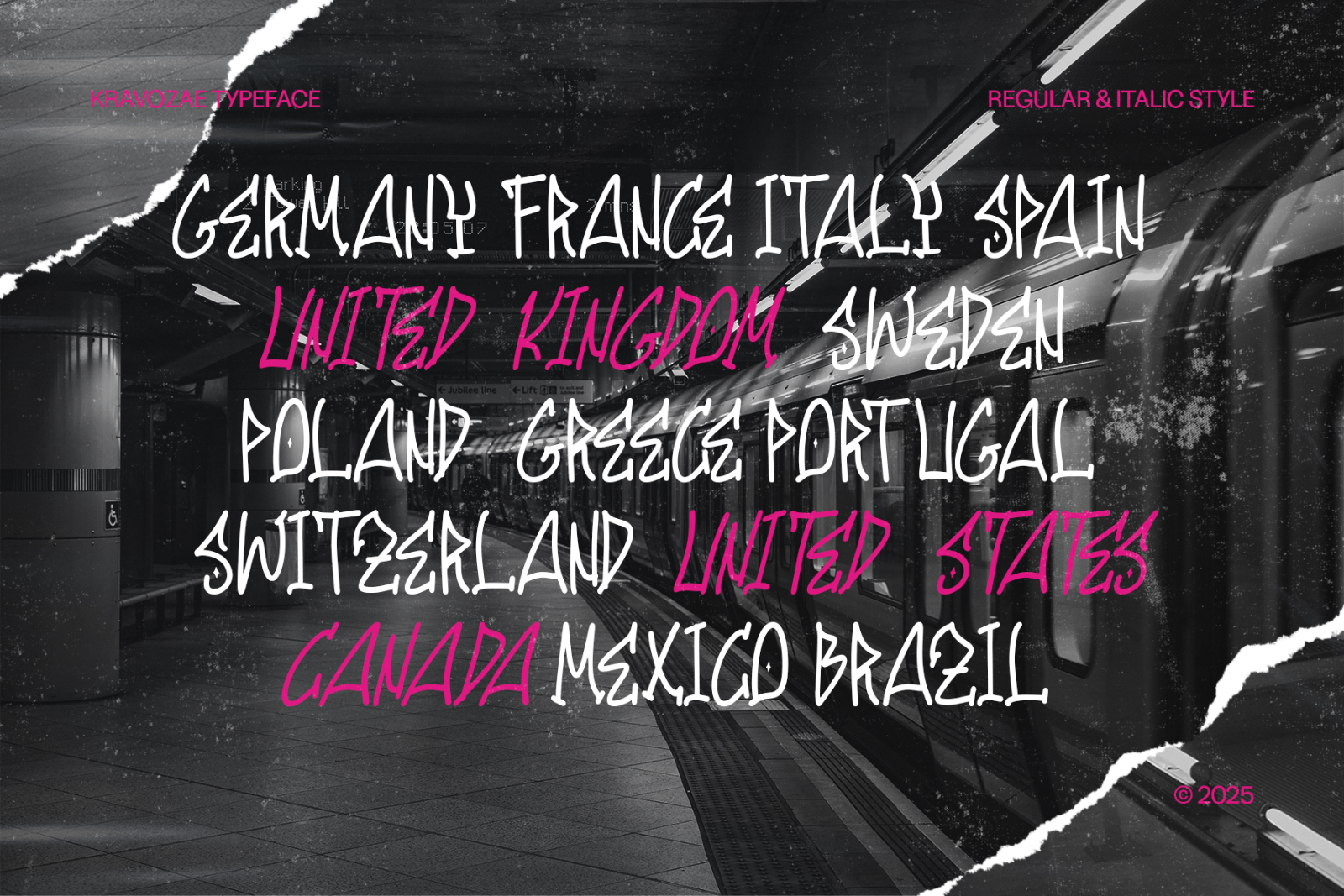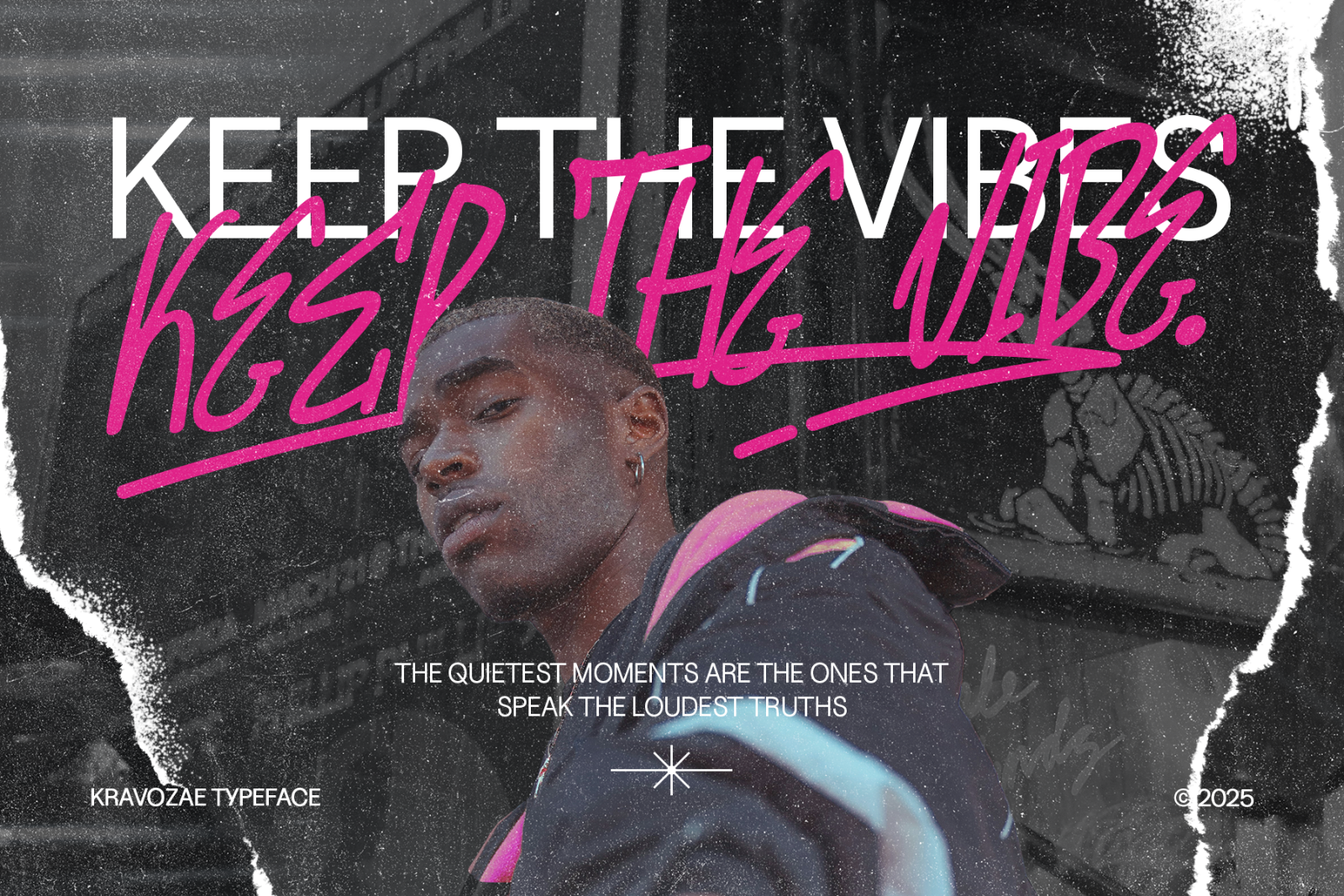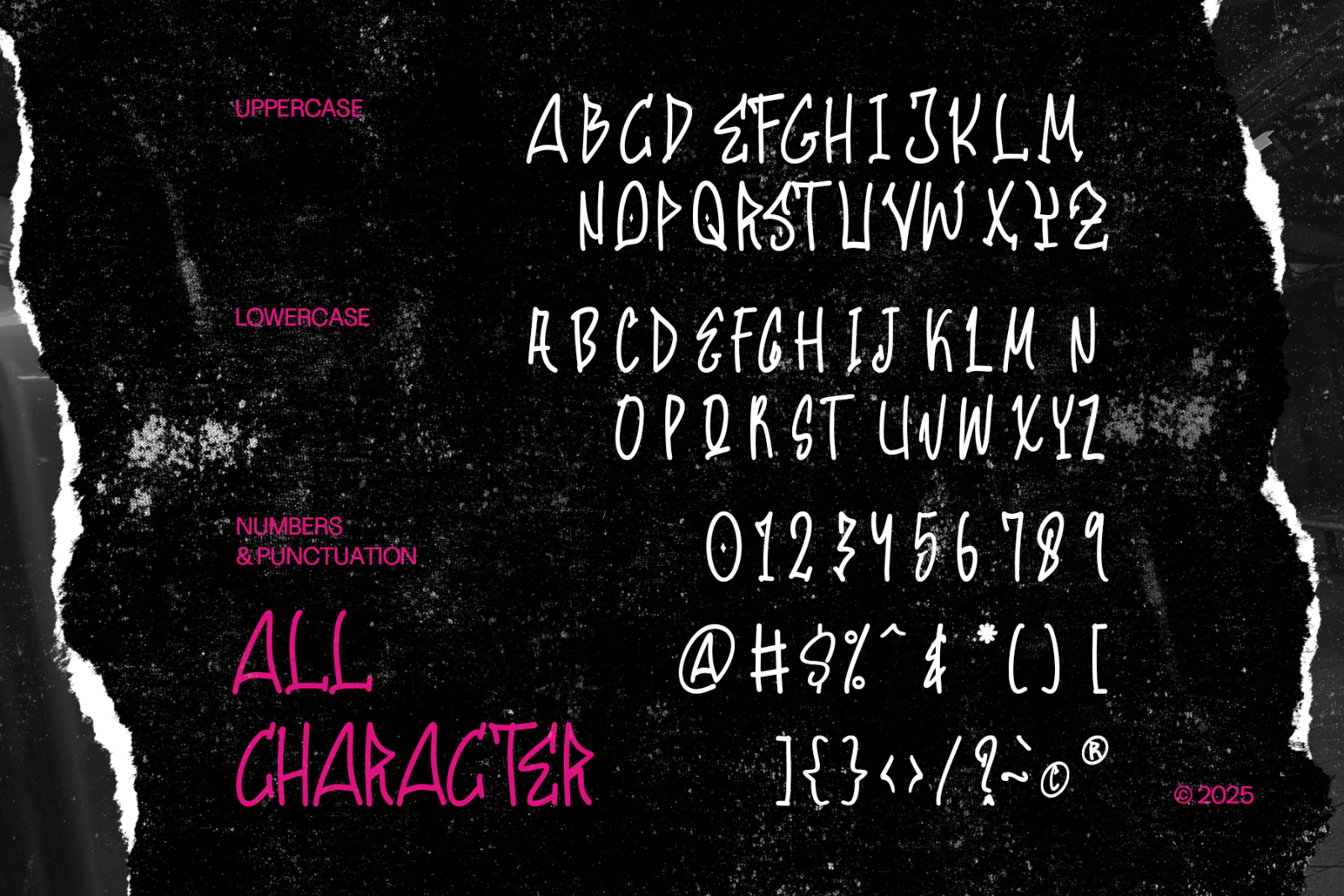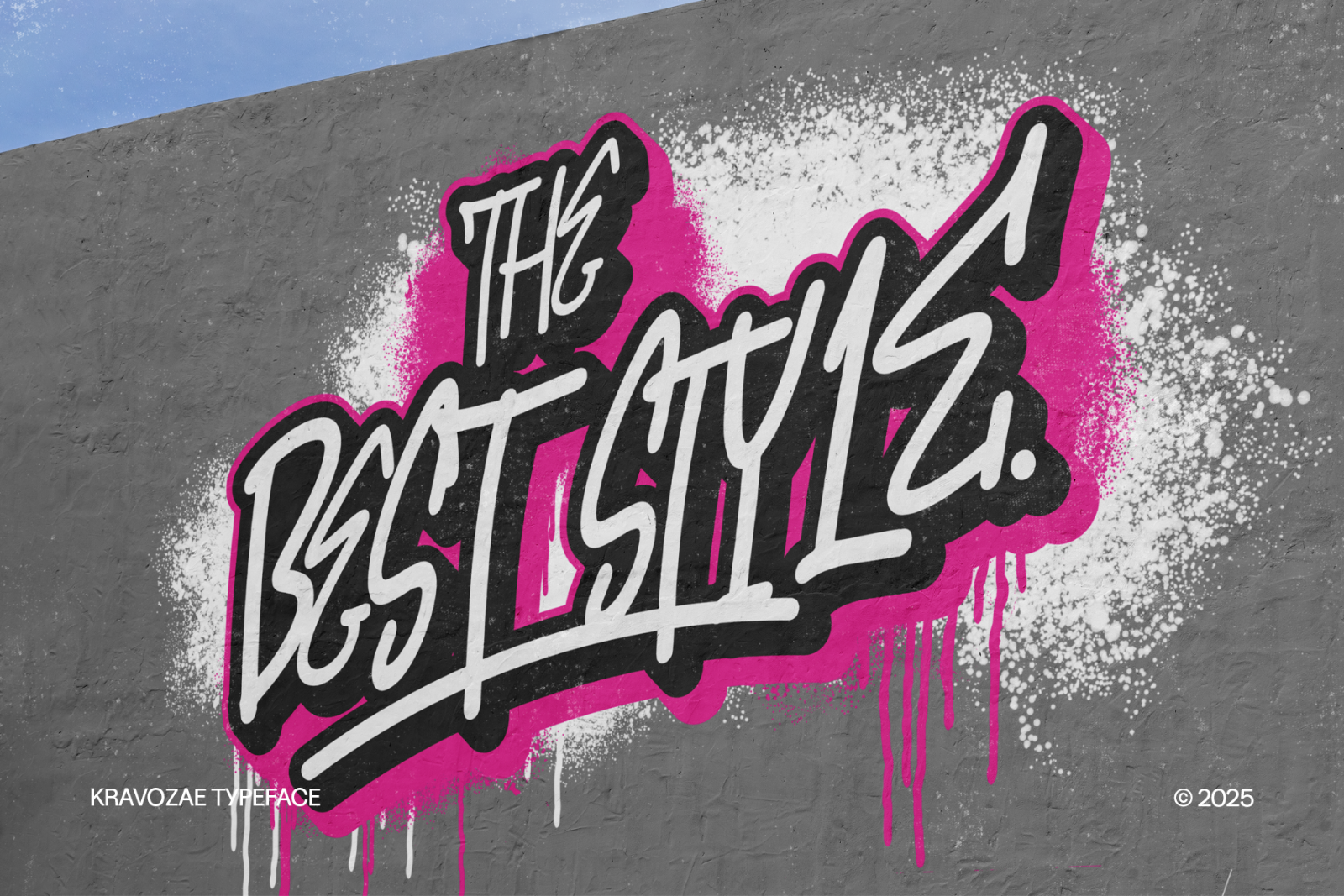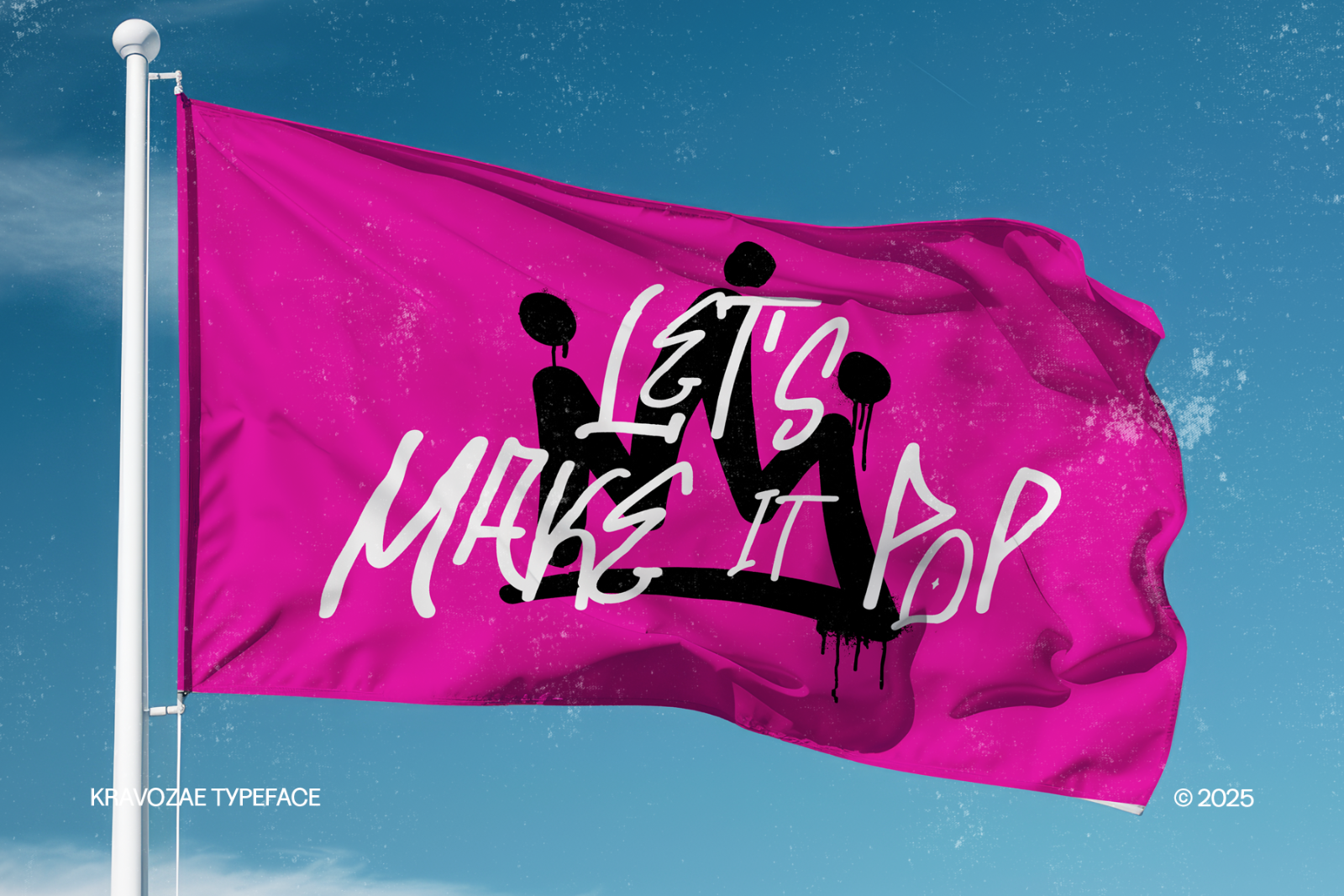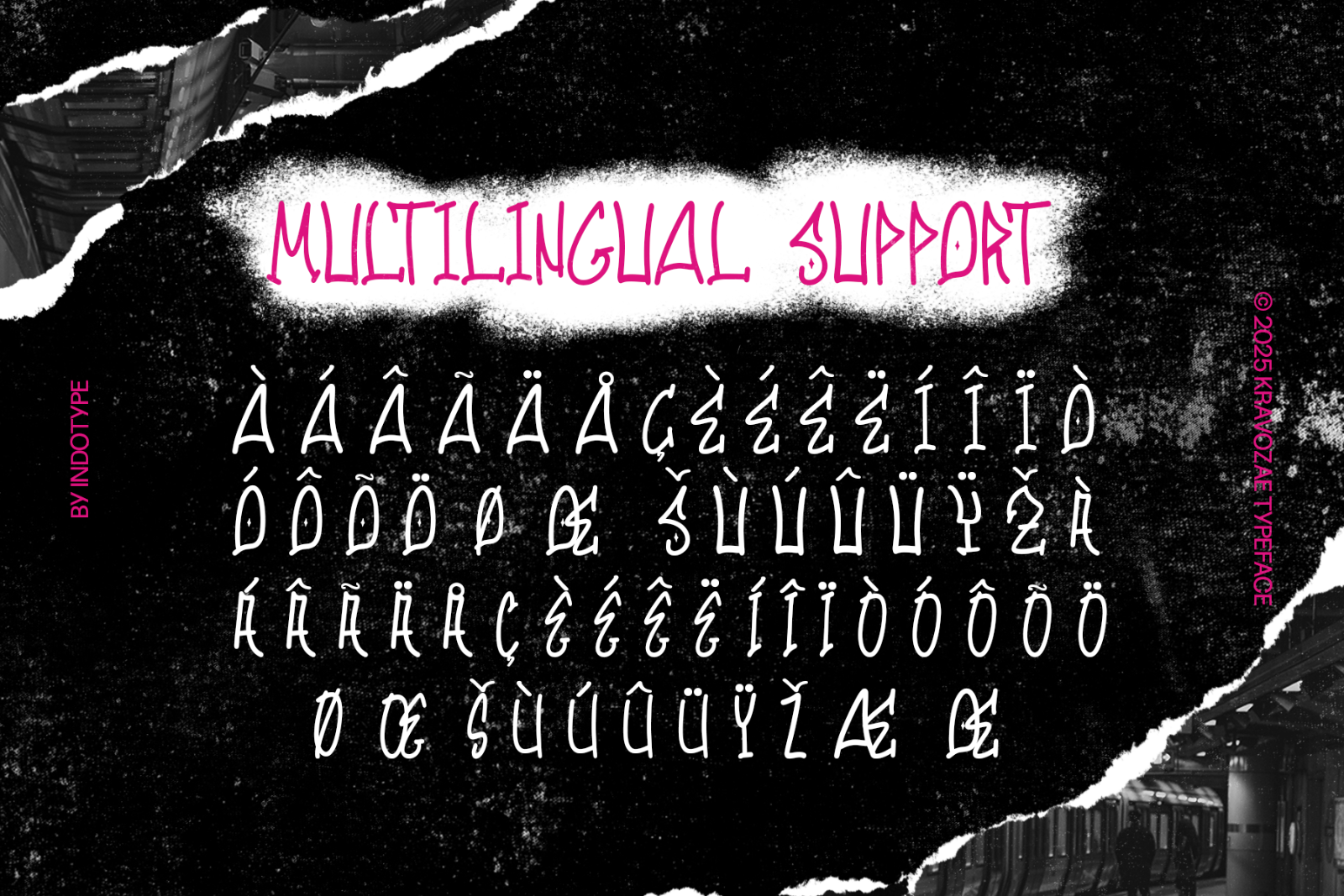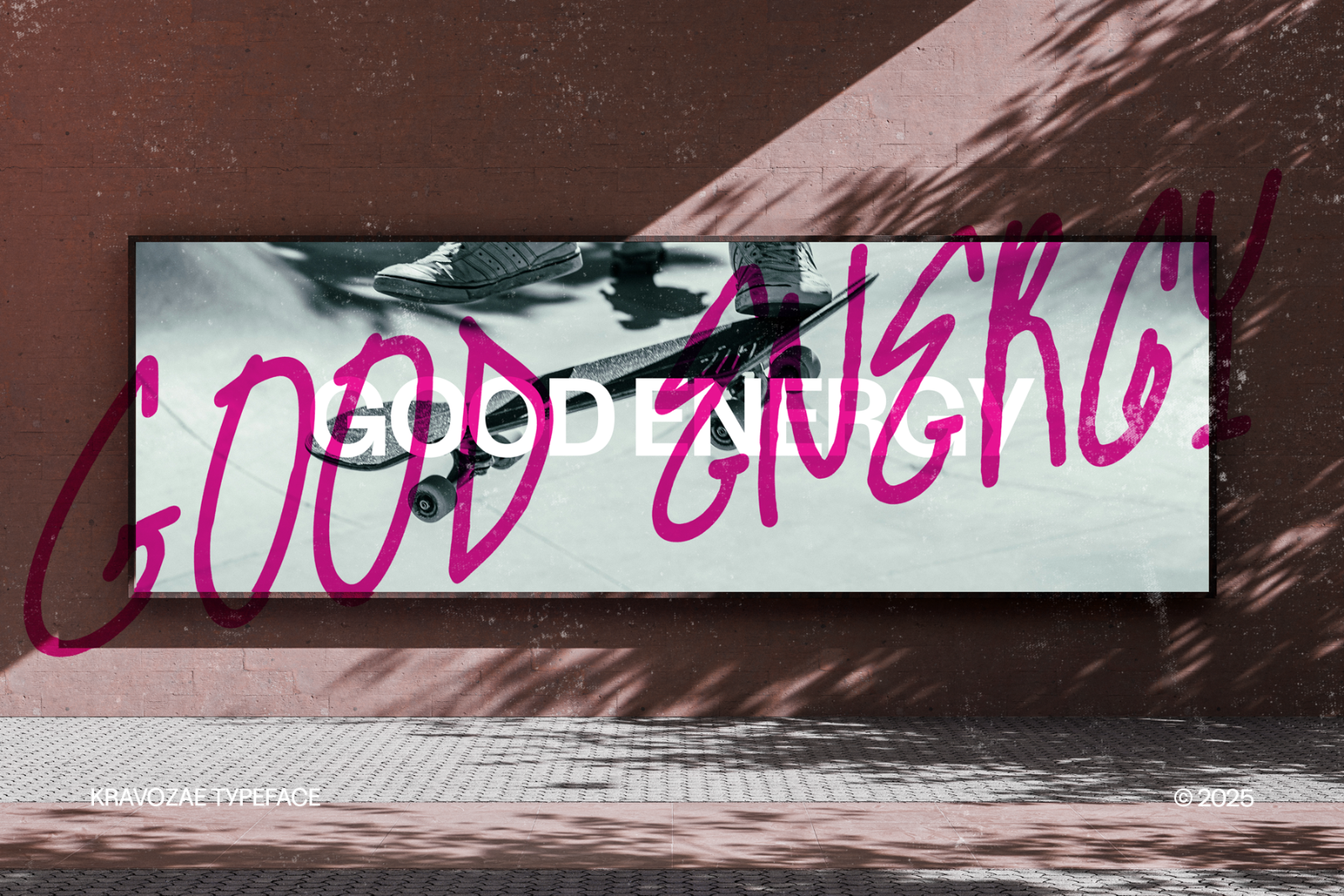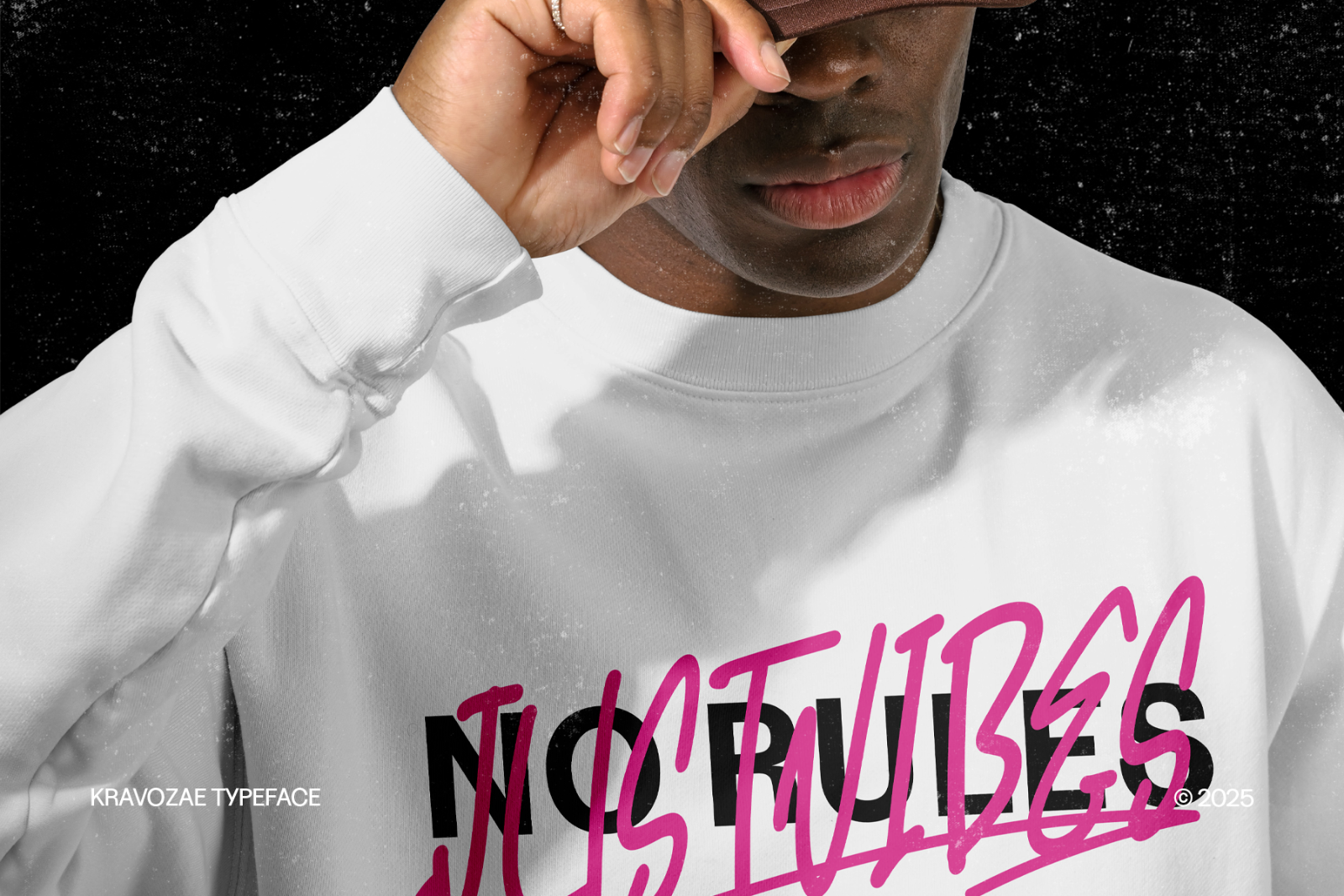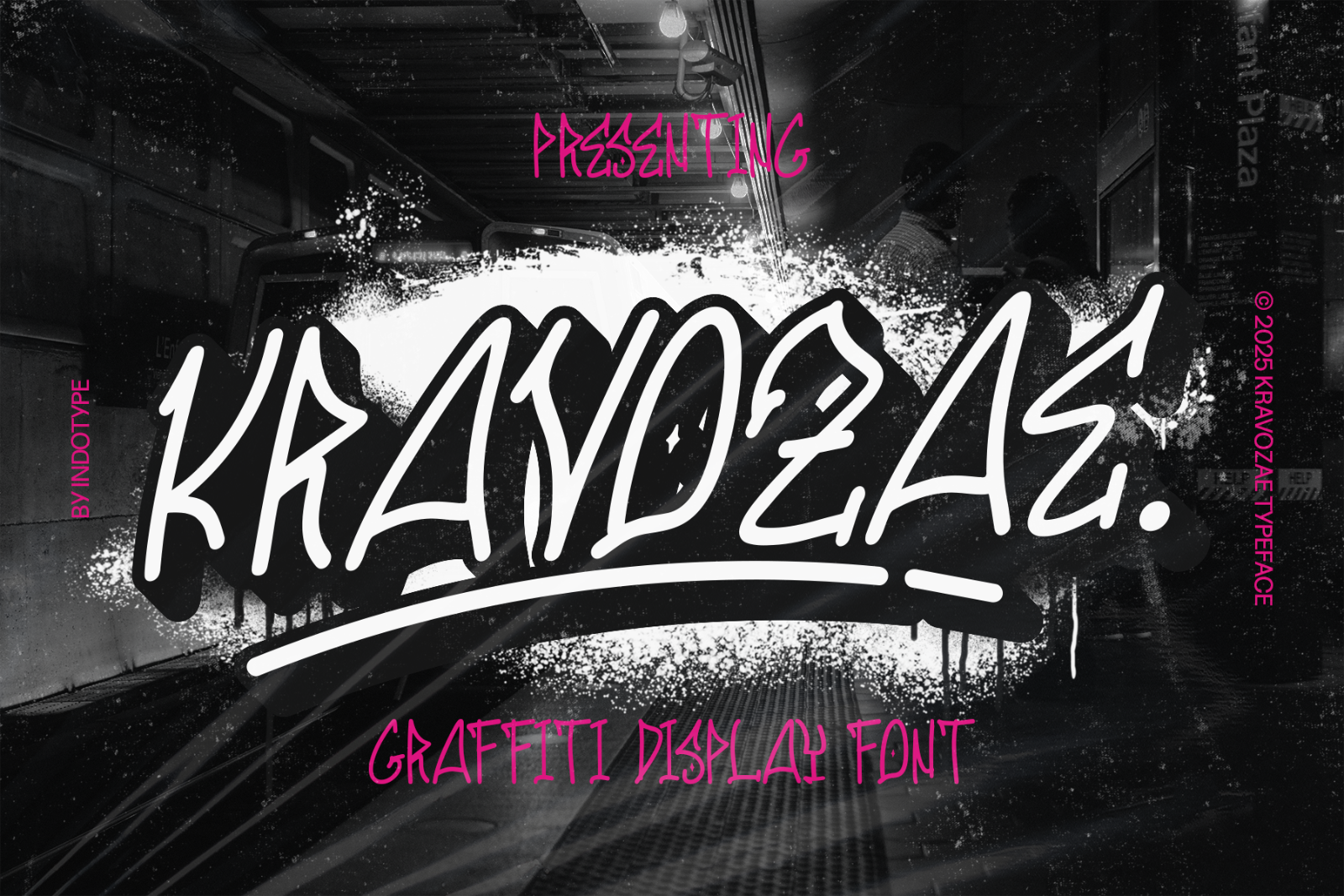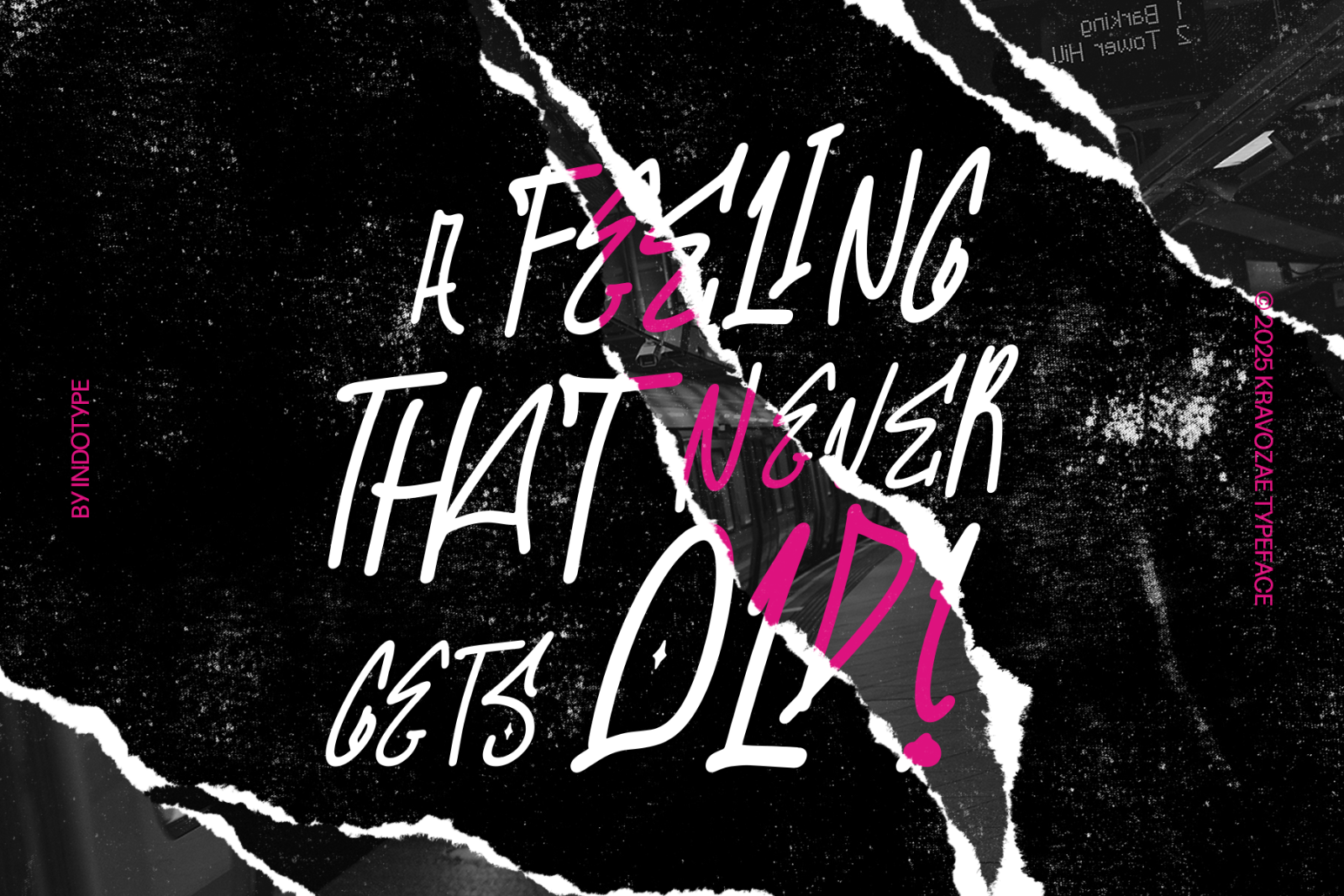
Kravozæ is a bold graffiti display font that captures the raw energy of street art and urban culture. With hand-drawn strokes, drips, and authentic spray-paint vibes, this typeface brings rebellious personality and expressive movement into your designs. Crafted to mimic real graffiti tagging, Kravozæ blends edgy imperfection with bold legibility. It’s perfect for posters, album covers, merchandise, branding for streetwear, urban events, and digital artwork that demands impact. Packed with alternate characters, ligatures, and multilingual support, Kravozæ goes beyond a font — it’s a visual shout that turns words into art. Whether you’re creating bold headlines or gritty designs, Kravozæ delivers a raw, powerful statement every time.